I think this guide helps you understand 2024 font in a simple way so we learn how this modern font works and how we use it to create clean and readable designs
I think fonts play a very important role in design because they decide how our content looks and feels. When I started learning about modern fonts I noticed that 2024 font style is very popular and useful. I want to explain everything in a simple way
I think that if we understand 2024 font properly then we can use it in websites, blogs, posters and many other places. We should know how it looks, where it works best and how we avoid common mistakes. This article is written from my own learning and experience so it feels real and helpful.
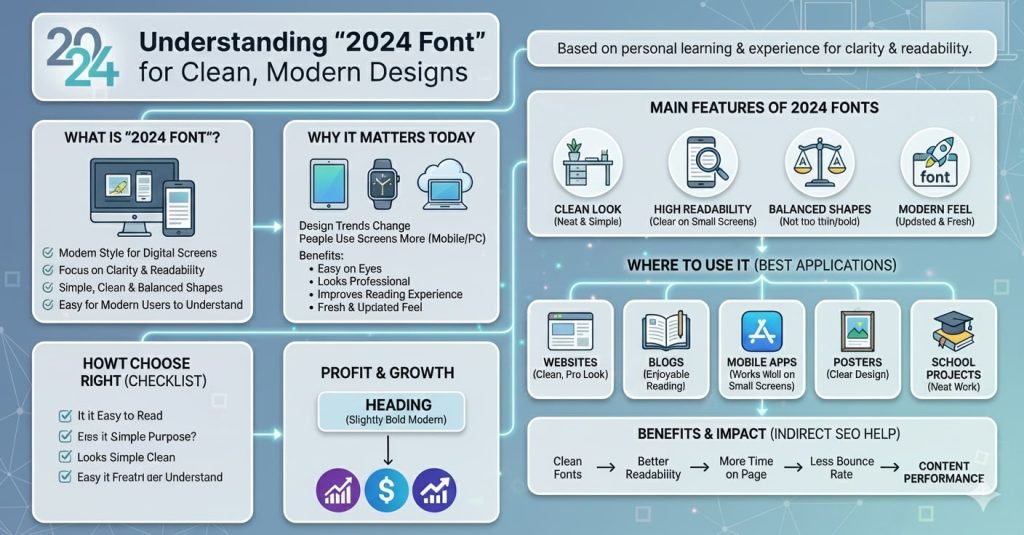
What Is 2024 Font
I think 2024 font is a modern font style that matches today’s design needs. These fonts are clean, simple and easy to read. They are made for digital screens and modern users.
We can say that 2024 fonts focus on clarity, readability and balance. If text is easy to read then users stay longer and understand better.
Why 2024 Fonts Are Important Today
I think design trends change with time and fonts also change. 2024 fonts are important because people use mobile phones, tablets and computers more than books.
These fonts help because They are easy on eyes They look professional They work well on screens They improve reading experience
If we want our content to look fresh then we should use modern fonts.
Main Features Of 2024 Fonts
Clean Look
2024 fonts look neat and simple.
High Readability
Text is easy to read even on small screens.
Balanced Shapes
Letters are not too thin and not too bold.
Modern Feel
These fonts feel updated and fresh.
Where We Can Use 2024 Fonts
I think many people ask where they should use this font style. From my experience these places are best.
Websites
2024 fonts make websites look clean and professional.
Blogs
Readers enjoy reading content when text is clear.
Mobile Apps
Modern fonts work well on small screens.
Posters
If we want a clean design then this font is perfect.
School Projects
Students can use these fonts for neat work.
How I Personally Use 2024 Fonts
I think personal experience matters a lot. I started using 2024 font style on my website content. I noticed that pages looked cleaner and users stayed longer.
Now I use these fonts for Headings Paragraphs Buttons Menus
I feel confident because the text looks clear and professional.
How To Choose The Right 2024 Font
I think choosing the right font is important.
We should ask Is the font easy to read Does it match the design purpose Does it look good on mobile Is it simple and clean
If answers are yes then the font is right.
How 2024 Fonts Help Content Rank Better
I think good design helps SEO in an indirect way.
Clean fonts Better readability More time on page Less bounce rate
All these help content perform better.
How To Combine 2024 Fonts With Other Fonts
I think font pairing is useful.
Use modern font for body text Use slightly bold font for headings
This creates balance and improves design.
Why Beginners Should Use 2024 Fonts
I think beginners should use these fonts because they are easy.
They are simple They look professional They reduce design mistakes They work everywhere
If you are learning design then start with modern fonts.
FAQ
What is the 2024 font?
It is a modern font style made for clean and readable designs.
Is 2024 font good for websites?
Yes it is perfect for websites and blogs.
Can students use 2024 fonts?
Yes, students can use them for projects and homework.
Are these fonts easy to read?
Yes, readability is the main feature.
Do 2024 fonts work on mobile?
Yes they are made for screens.
Conclusion
I think 2024 font style is one of the best choices for modern design. We learned what it is, where to use it and how to avoid mistakes. If we use these fonts correctly then our designs look clean, modern and professional.
We should always focus on readability and simplicity. This guide gives you clear understanding and real experience so you can use 2024 fonts with confidence and improve your work easily.